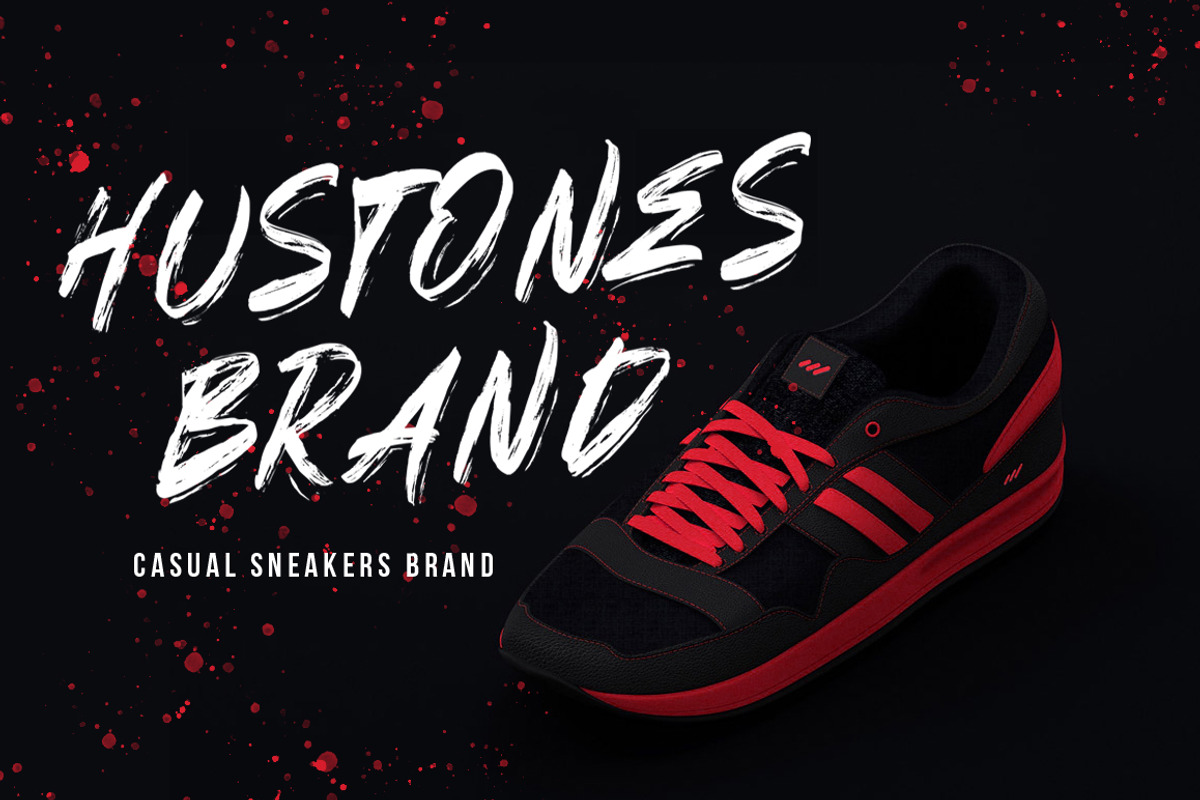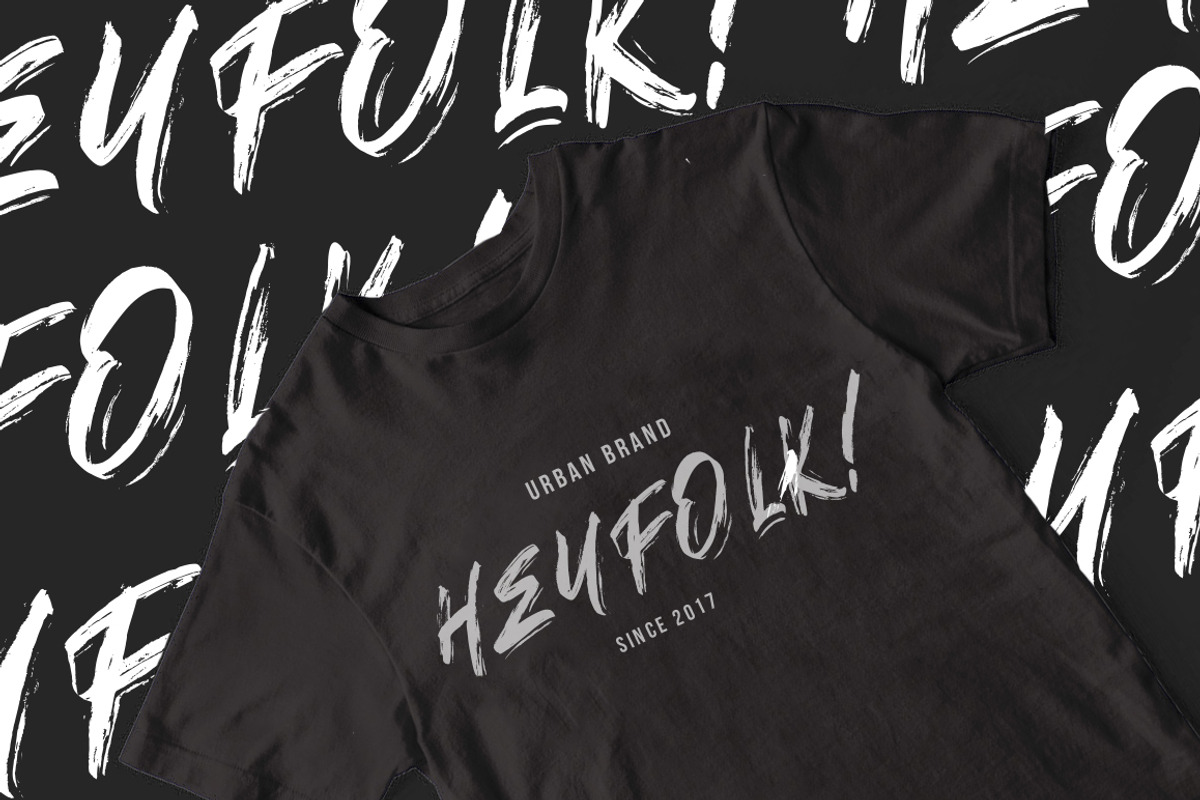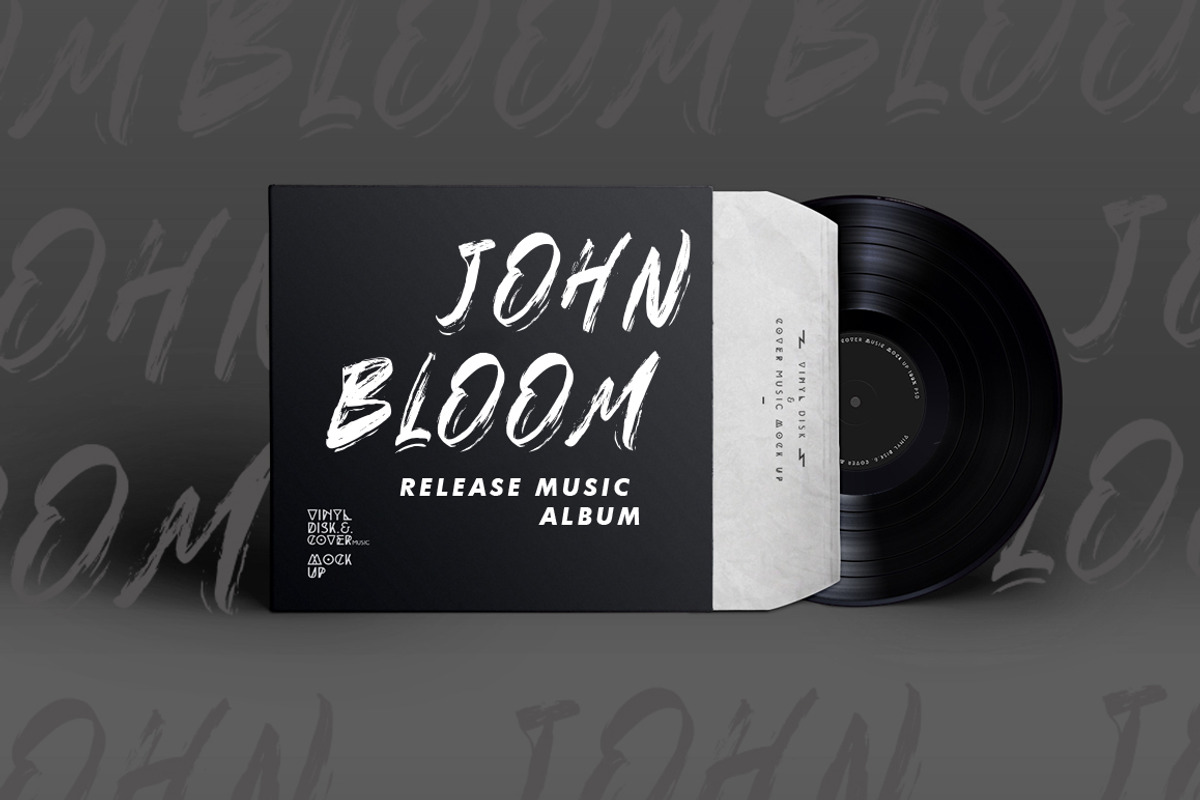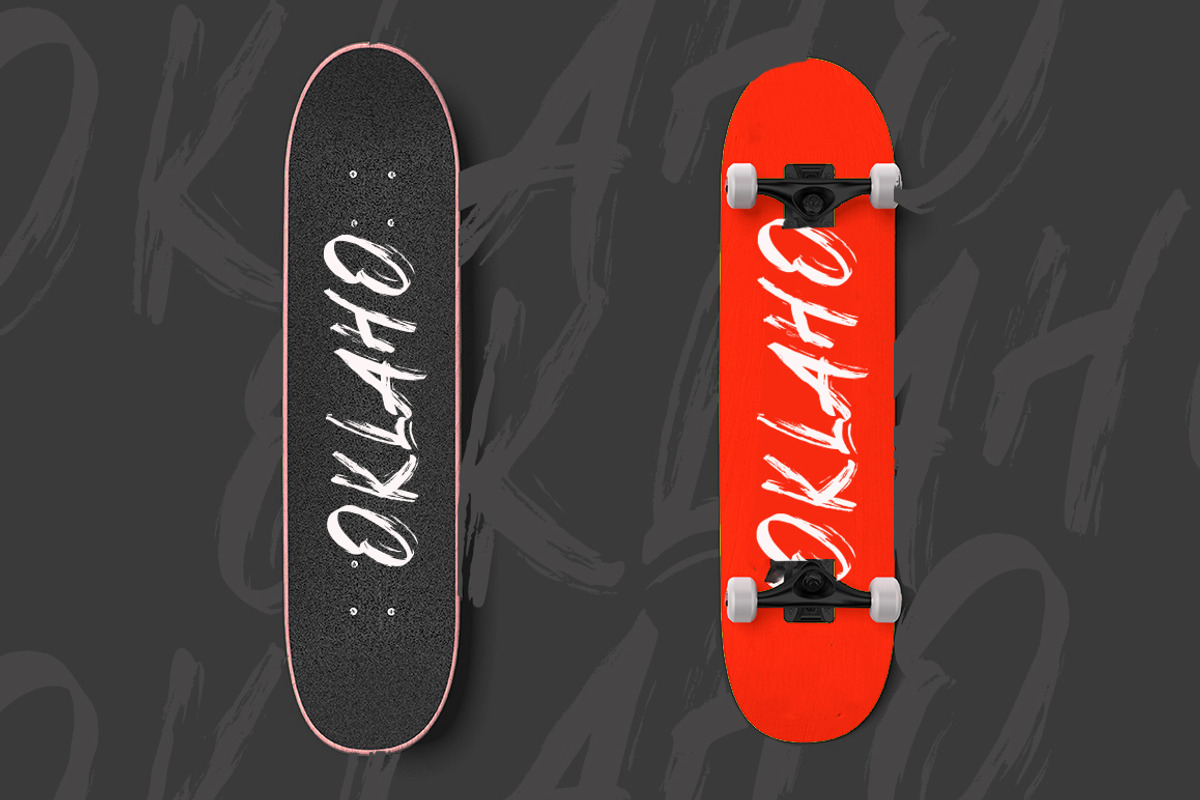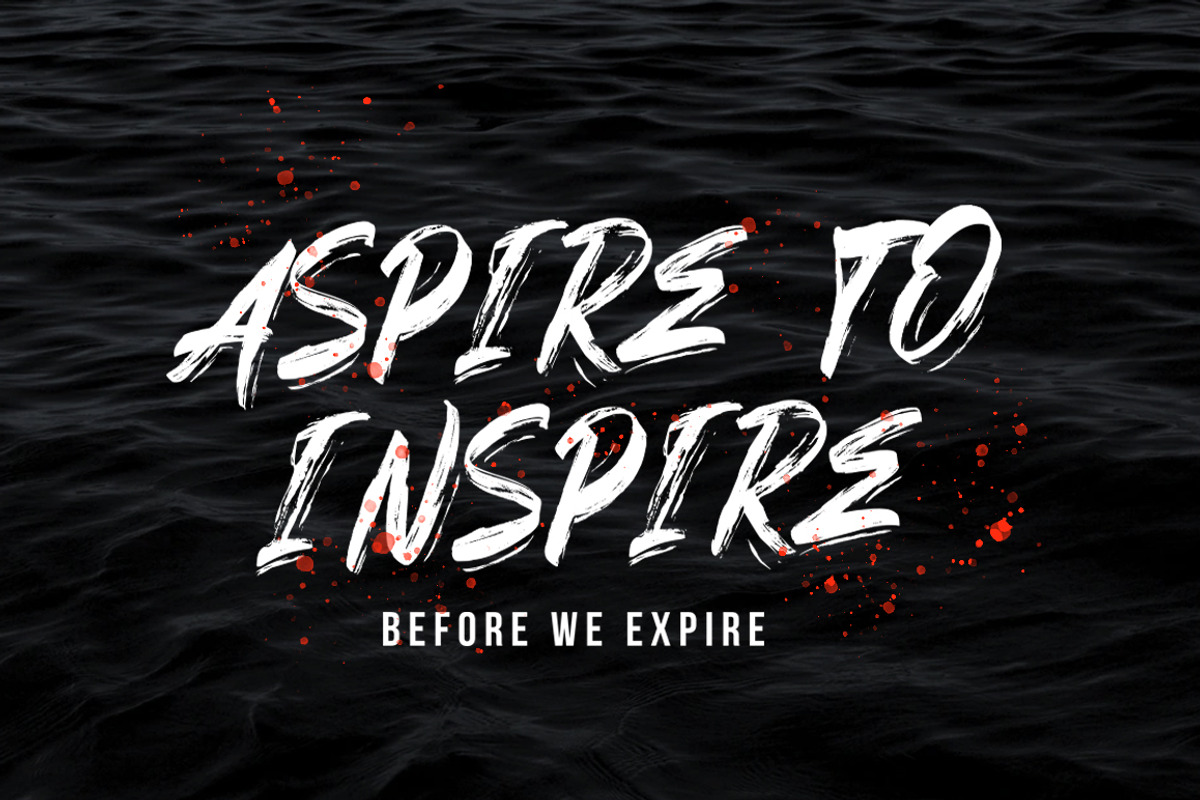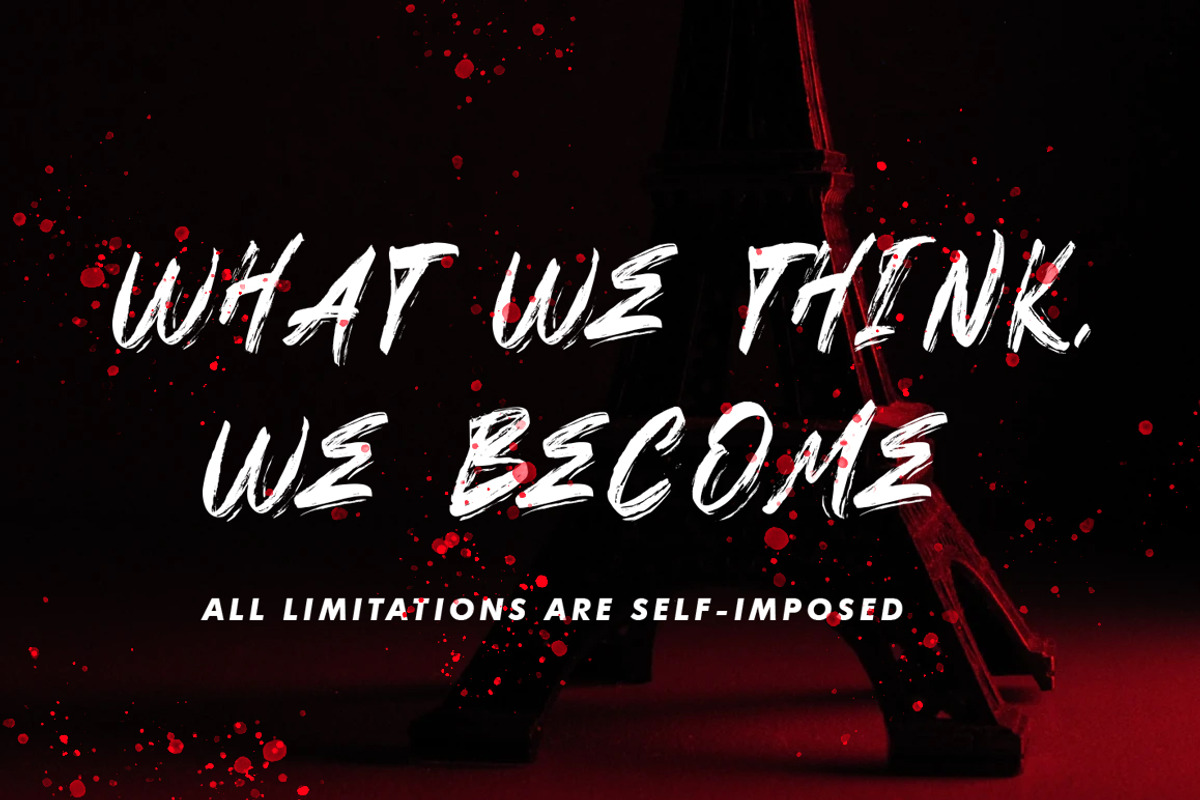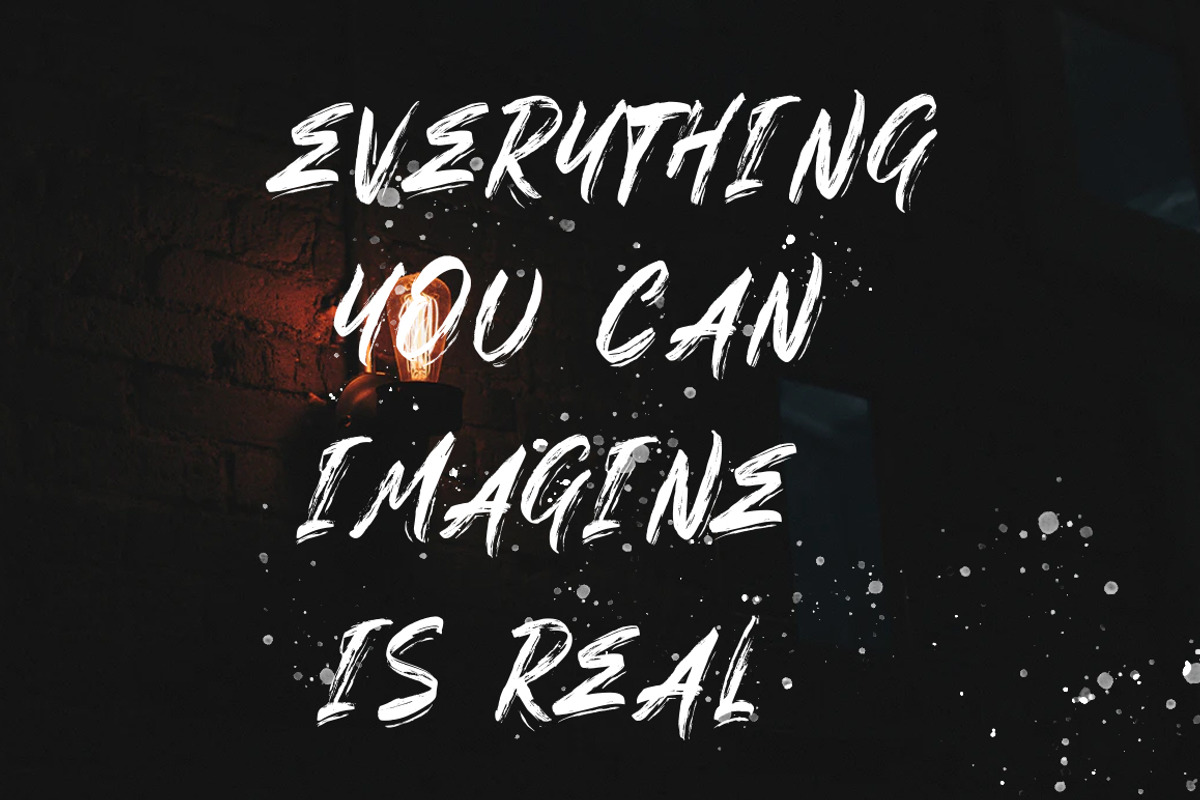
Goshbe - Street Brush Font
INTRODUCING Goshbe Brush Font is a street-wise brush font bursting, Goshbe is ideal for logos, apparel,T-shirt,Hoodie, quotes, product packaging, or anything which needs a typographic turbo-boost. With extra attention to quick strokes and sharp details,
Made carefully to create the perfect texture and suitable for each of your projects also great for Logotype, Branding Design, Logo Design, Digital Lettering Arts, T-Shirt/Apparel, Poster, Magazine, Signs, Advertising Design, and any vintage design needs.
Upper + Lowercase Letters
Goshbe - Street Brush Font by Vultype Co. fits naturally into Branding, posters, packaging, typography.